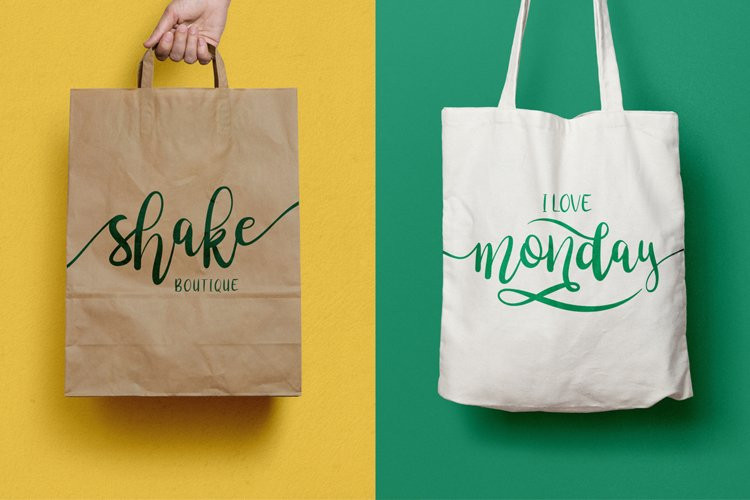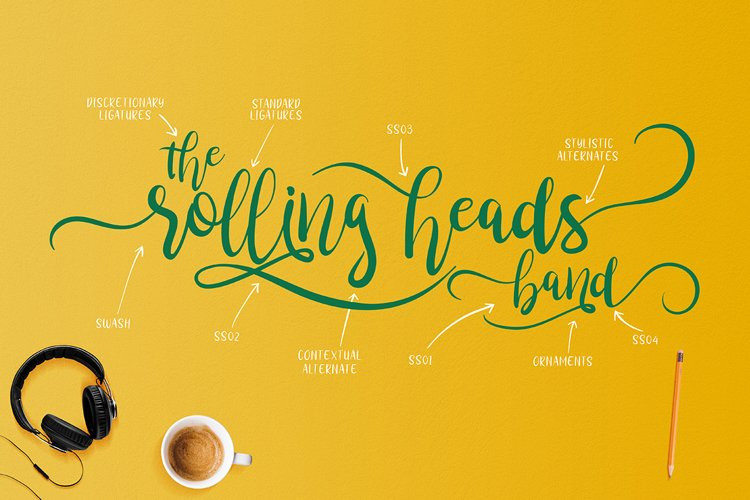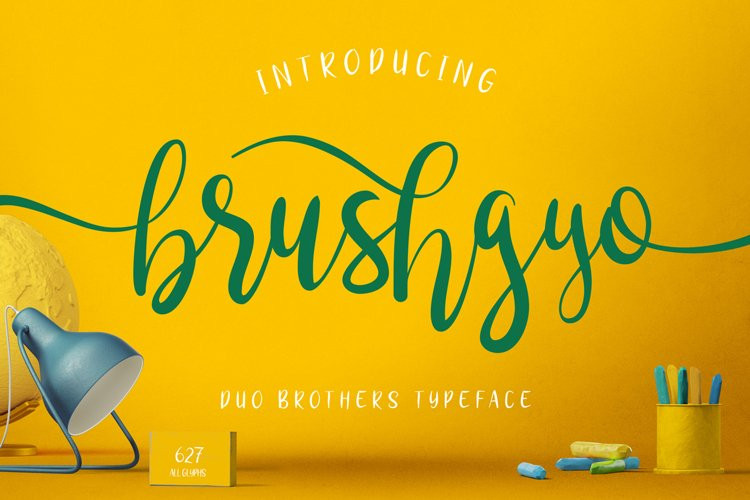
Brushgyo Font
Brushgyointroducing brushgyo duo brother typeface. yeah… duo brothers because they are both very suitable if combined for your designs. For brushgyo regular it’s embrace modern script and brushgyo brother can be said to belong to handwriting sans serif.brushgyo duo brother perfectly suited for logotype design, lettering wedding couple name, menu foods design, t-shirts design and others. font is worthy of being one of a collection of your fontbook because to have a unique character, handwriting and modern style.